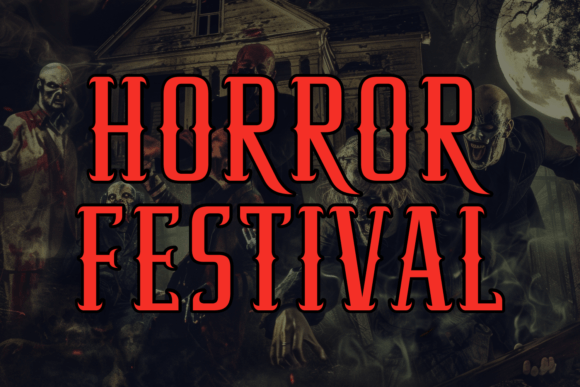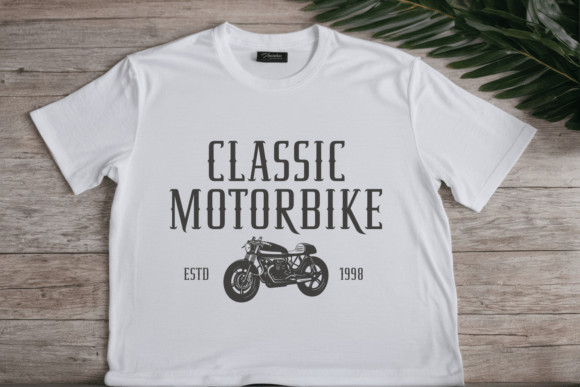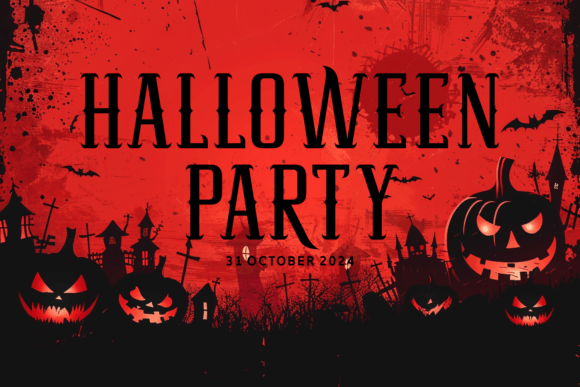
Introduction to Grotesque Font
You’re in the midst of a creative project, pouring over design resources to find the perfect font to elevate your brand. You’ve got a clear vision in mind, but something’s missing – a unique touch that sets you apart from the crowd. That’s where the Grotesque Font comes in – a modern twist on the classic blackletter style that’s guaranteed to turn heads.
This versatile font is more than just a design element – it’s a statement piece that adds depth and sophistication to any project. With its bold, stylish lines and sleek edges, the Grotesque Font is the perfect choice for brands looking to make a lasting impression. Whether you’re designing a logo, packaging, or website, this font is sure to be a valuable asset in your creative toolkit.
Key Features of Grotesque Font
- High-quality design resource ideal for creative projects and presentations.
- Includes a range of characters and glyphs, suitable for various languages and applications.
- Designed with a modern aesthetic, perfect for use in digital and print media.
Honest Review: Grotesque Font
As a designer, I’ve had the pleasure of working with the Grotesque Font on various creative projects. One of its standout features is its versatility – it’s perfect for both digital and print designs, thanks to its clean and modern aesthetic.
- ✨ High quality: The font’s crisp lines and smooth curves make it a great addition to any design project.
However, there are a few limitations to consider. ⚠️ Not ideal for complex typography: While the font is great for simple text, it may not be the best choice for complex typography or intricate designs.
Overall, I’m impressed with the Grotesque Font’s performance and versatility. It’s a solid addition to any designer’s toolkit, and I’d definitely recommend it for creative projects that require a clean and modern aesthetic.
For the best results, use the Grotesque Font in high-quality designs and creative projects where a unique and eye-catching font is needed. You can also use the font in conjunction with other design resources, such as images and graphics, to add depth and interest to your design.
The Grotesque Font is ideal for use in logo design, branding, and marketing materials, as well as in creative projects such as posters, flyers, and brochures. It’s also a great option for designers who want to add a touch of elegance and sophistication to their designs.